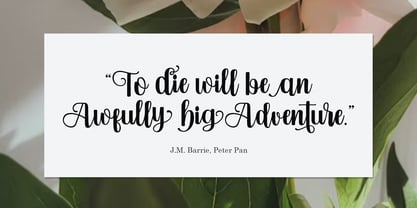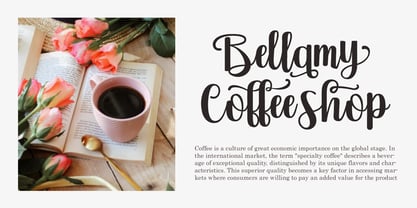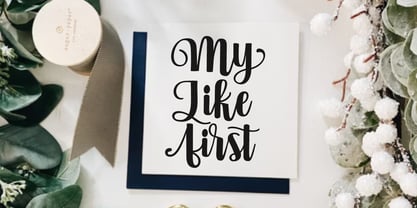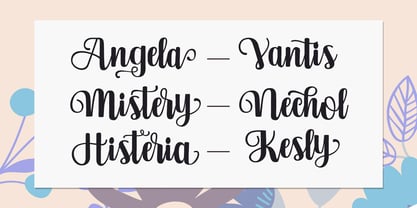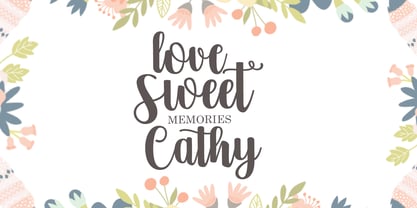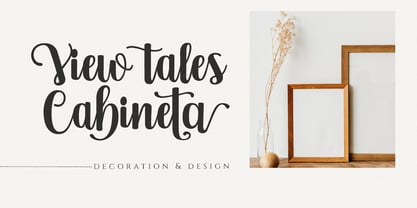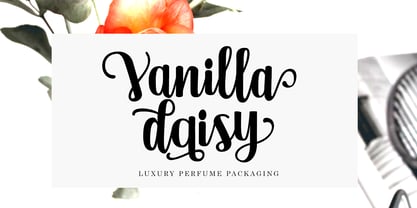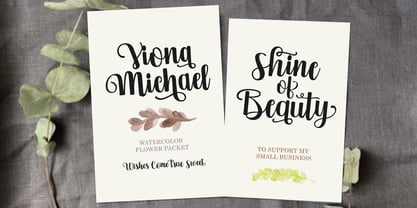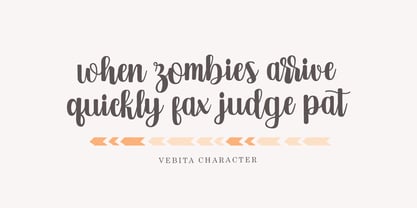
Vebita
The Vebita Font Family was designed by Bustami Harun and published by Genesislab. Vebita contains 1 styles. More about this family
Vebita is a romantic and timeless script font. With flowing curves and delicate details, it's perfect for branding, wedding invitations, packaging, apparel, and more.
With access to stylistic alternatives, Vebita lets you create truly unique and expressive typography. Its features provide seamless customization to meet any design vision.
Stylistic set (ss01, ss02, ss03, ss01)
Numerals & Punctuation
Discretionary Ligature
Multilingual Support